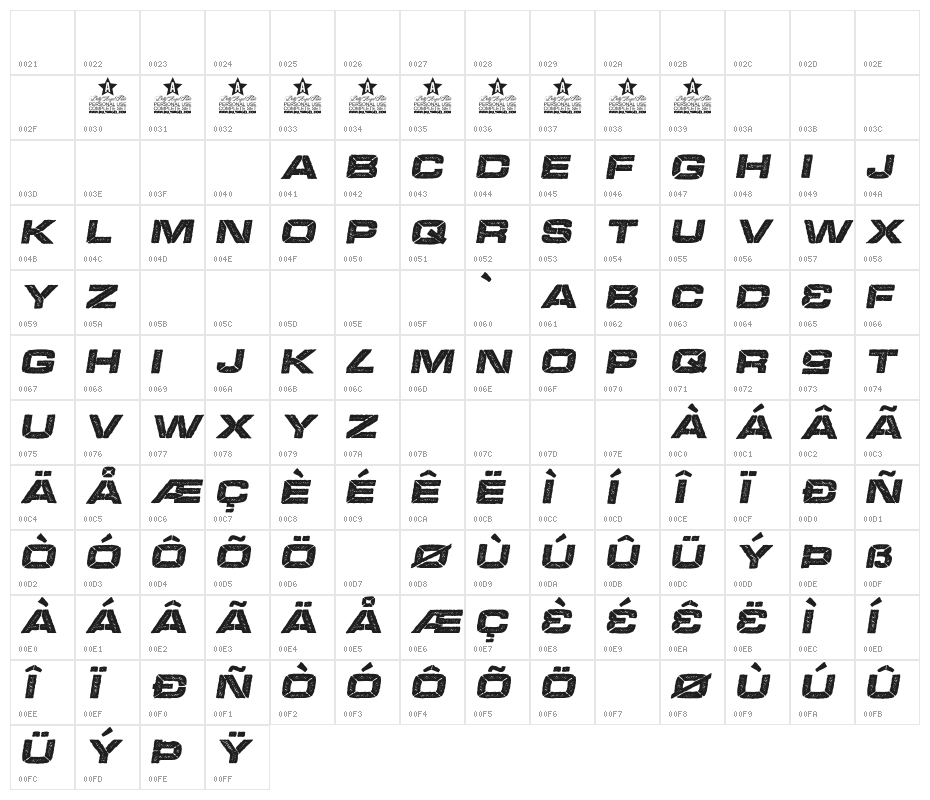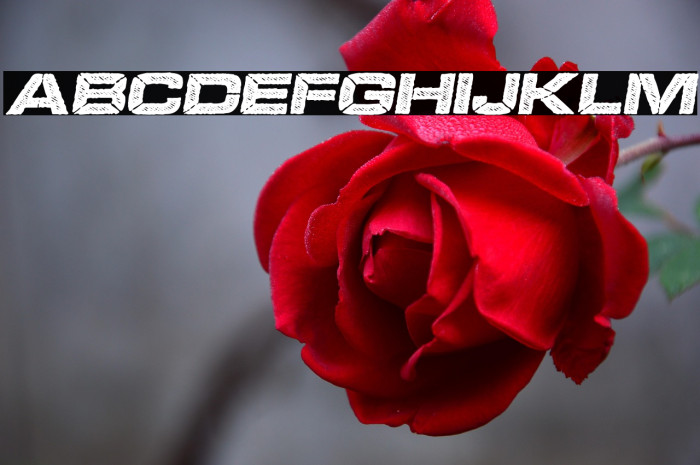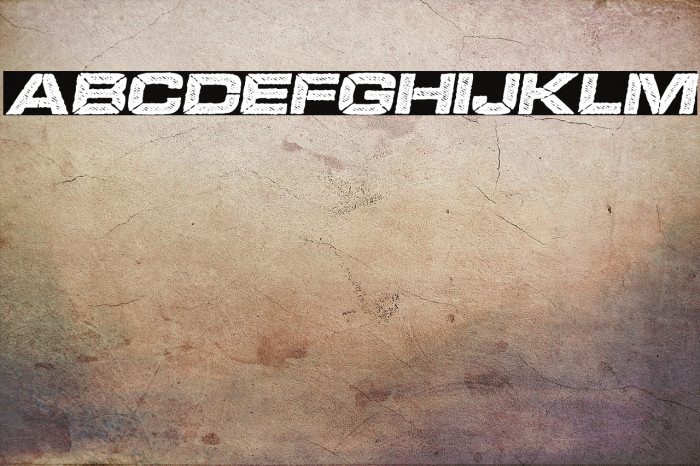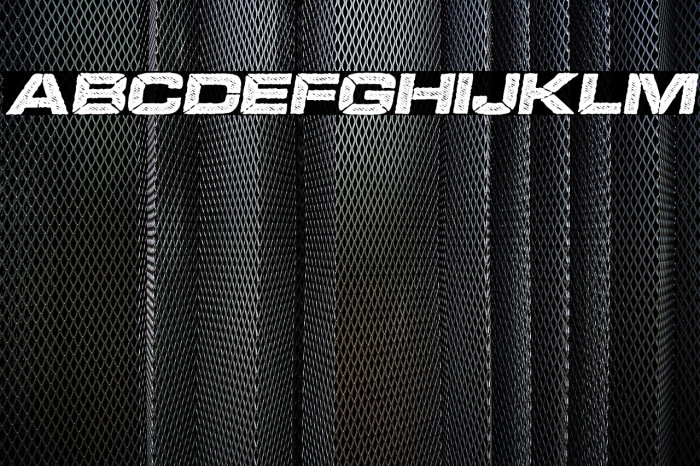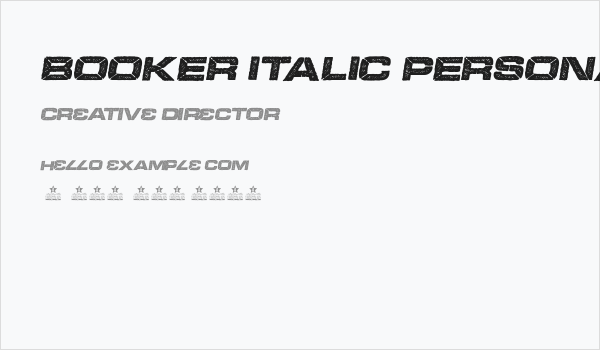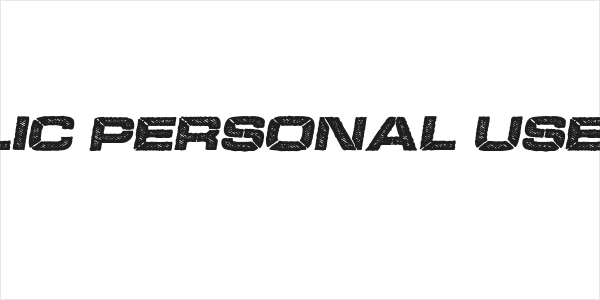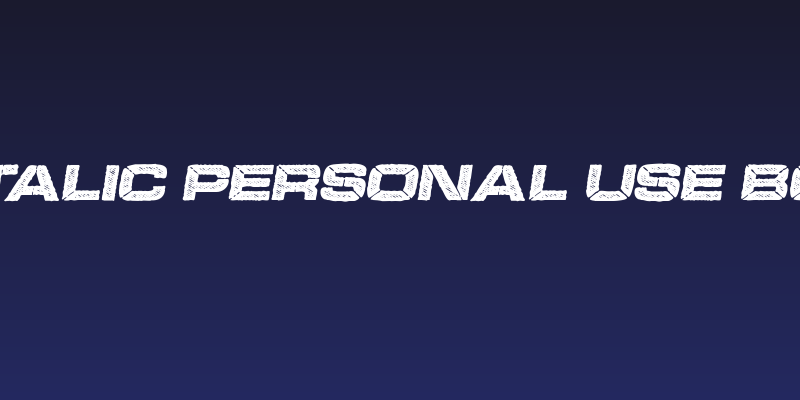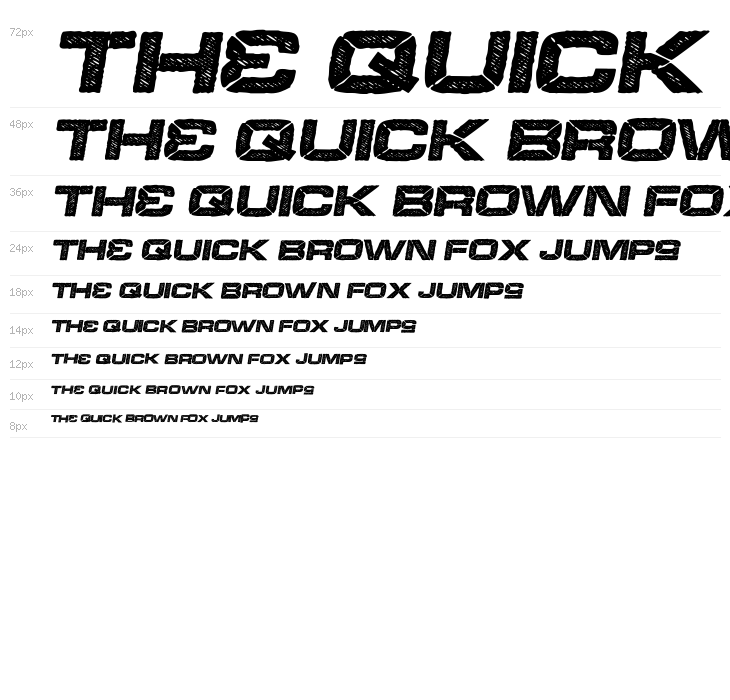
BOOKER ITALIC PERSONAL USE Bold Italic Font
BOOKER ITALIC PERSONAL USE Bold Italic Description
This font features a bold and italicized style with a distressed texture that gives it a rugged, edgy appearance. The uppercase letters are prominently displayed with a slanted orientation, adding a dynamic and energetic feel. The characters are well-defined with a consistent thickness, contributing to its boldness. The texture within each letter adds a unique, worn-out effect, making it suitable for designs that require a vintage or grunge aesthetic. The font maintains a uniform width across all characters, ensuring readability while still offering a distinctive look.